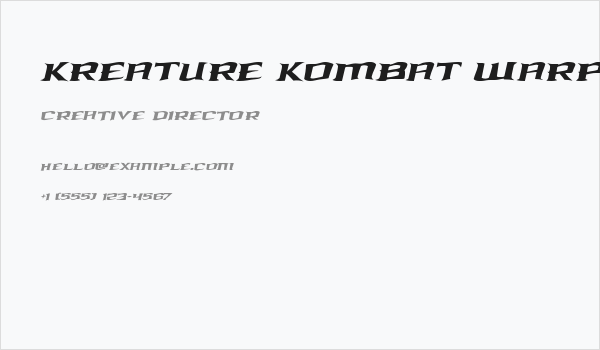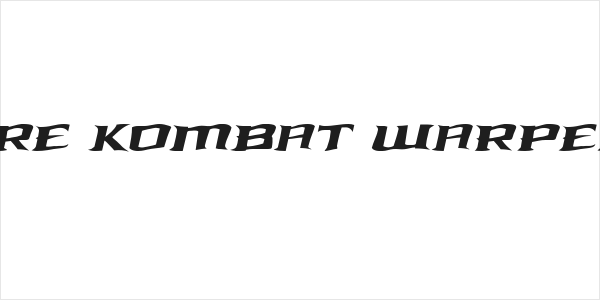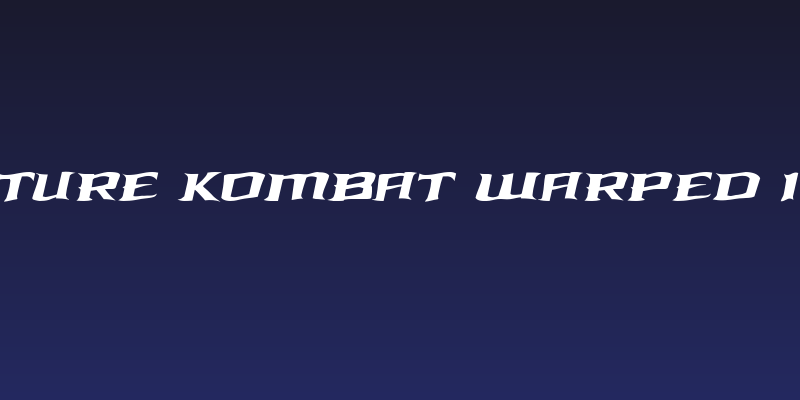
Kreature Kombat Warped Italic Font
Kreature Kombat Warped Italic Description
This font features a bold and dynamic design with a distinctly italicized and warped appearance. The characters exhibit sharp, angular edges and a sense of movement, creating an energetic and aggressive style. The uppercase and lowercase letters maintain a consistent slant, enhancing the italic effect. Numbers and special characters follow the same design principles, ensuring uniformity across the font. The overall look is modern and edgy, making it suitable for projects that require a strong visual impact.
| Proposed Projects | Ideal for video game titles, sports branding, action movie posters, and edgy graphic design projects. |